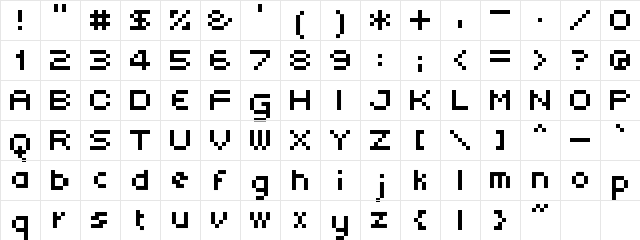
Subatomic Screen Condensed Screen
| Foundry | subatomic |
| Designer | Kevin Meinert |
Design Context for Subatomic Screen Condensed Typeface
Subatomic Screen Condensed is a composed and adaptable typeface that performs quietly and consistently across a wide range of design contexts. Its narrow stance lets it pack a punch even in space-constrained designs.